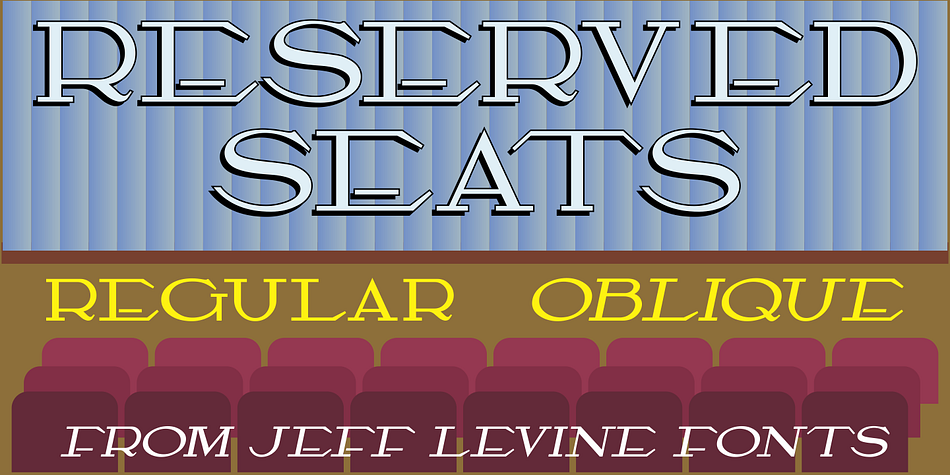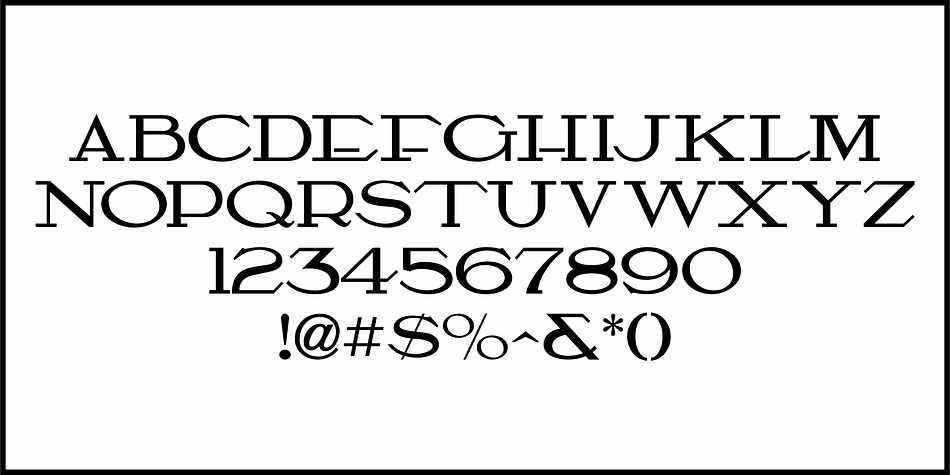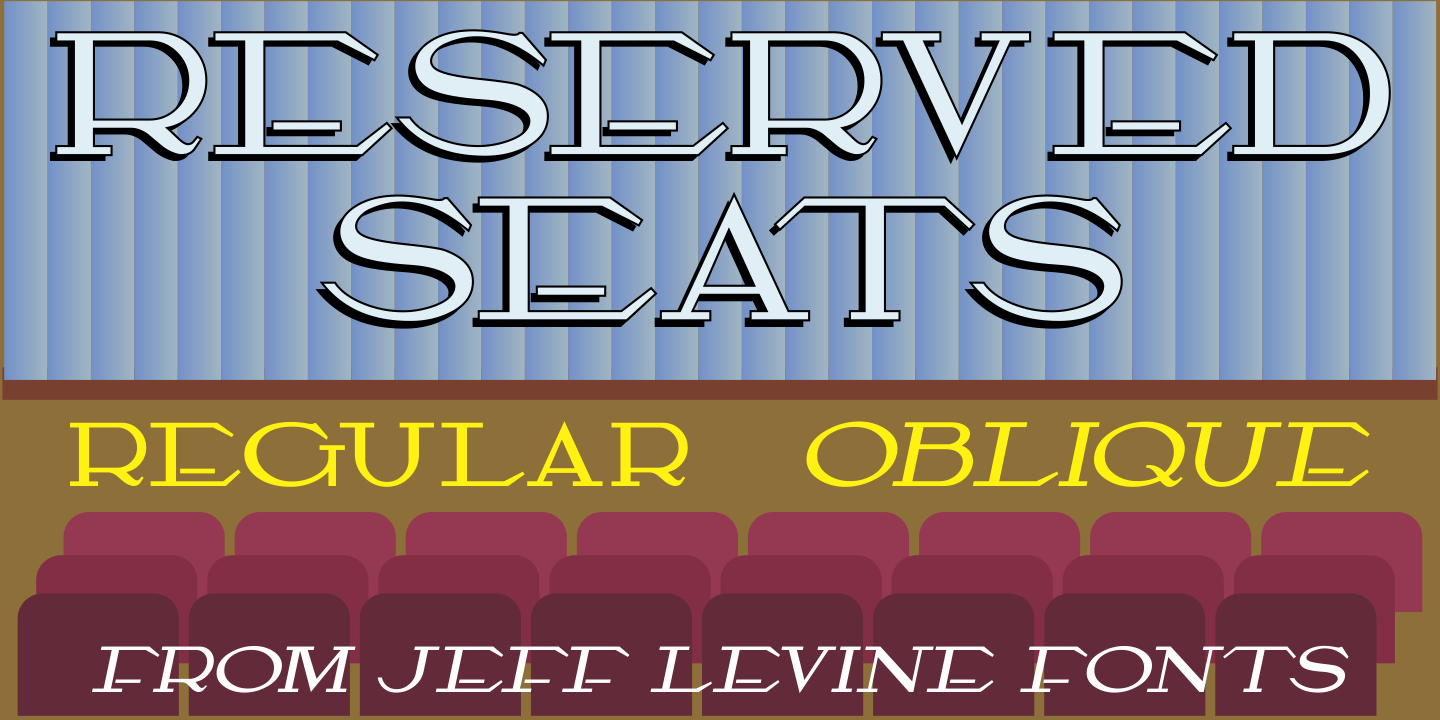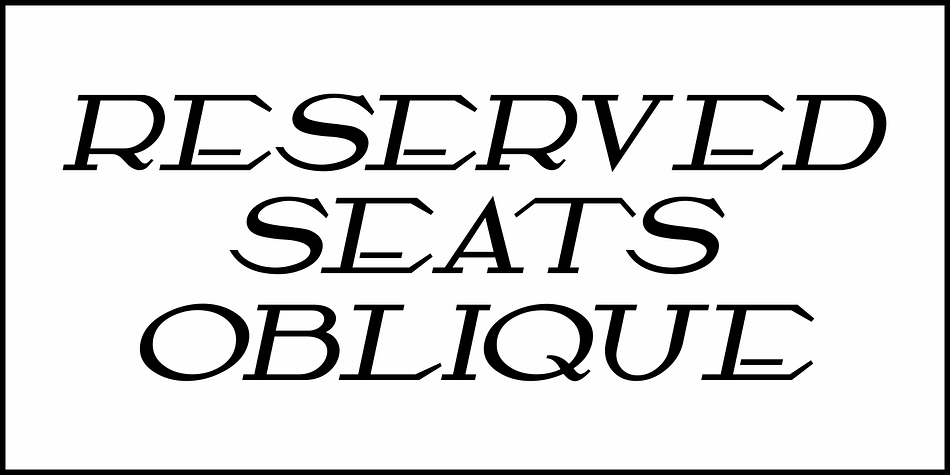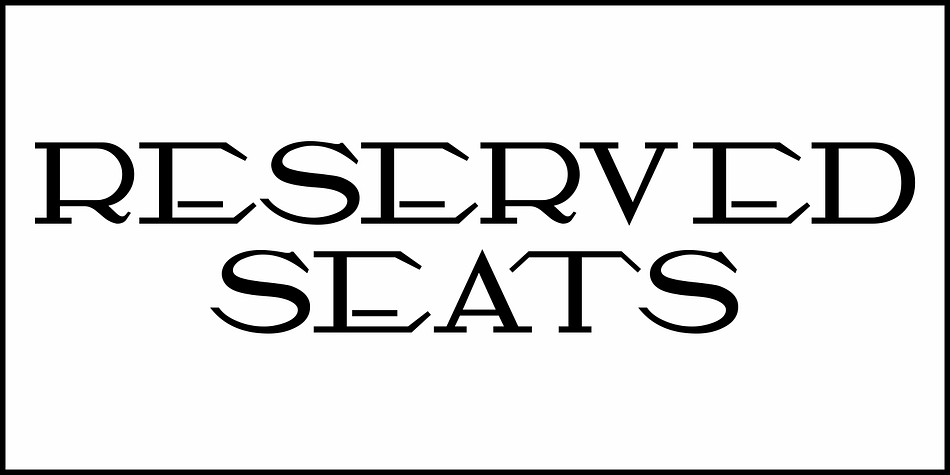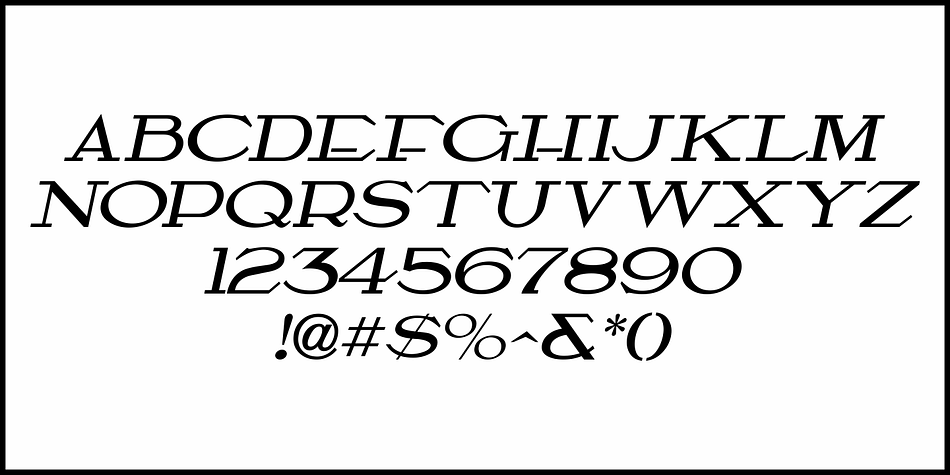
RESERVED SEATS
Designed by Jeff Levine, Reserved Seats is a display serif font family. This typeface has two styles and was published by Jeff Levine Fonts.
The title block from the cover of the January, 1919 issue of Moving Picture Age inspired the digital typeface Reserved Seats JNL, which is available in both regular and oblique versions.
An Art Nouveau slab serif design, it is typical of the hand lettering so popular in early 20th century advertising.